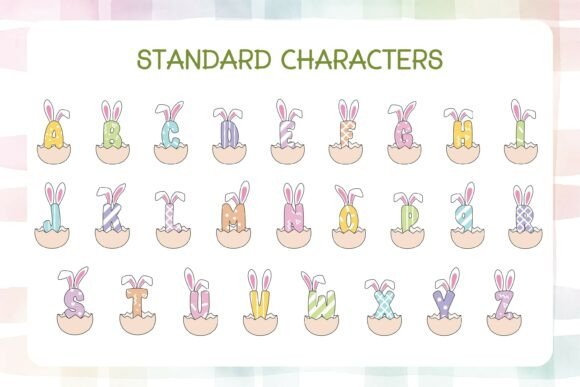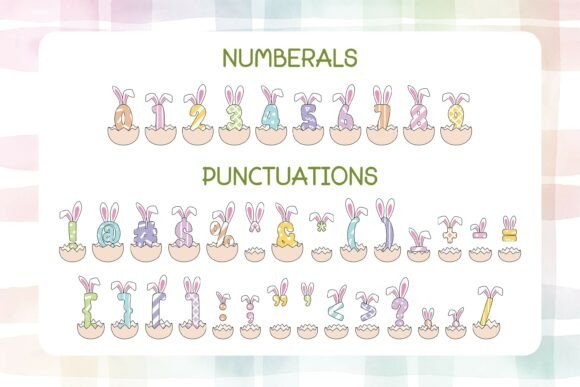
Bunny Hatch Font: The Ultimate Easter-Inspired Color Display Font 🐰🥚✨
Are you looking for a font that can add a touch of Easter magic to your designs? Look no further than the Bunny Hatch Color Font! This adorable font is inspired by Easter, bunny ears, and cracked eggshell designs, making it perfect for fun, kids, and holiday projects. In this article, we’ll dive into the features and benefits of the Bunny Hatch Color Font and explore its endless possibilities for designers and crafters.
What is Bunny Hatch Color Font?
Bunny Hatch Color Font is a cute and playful color display font that features colorful patterns and adorable bunny ears popping out of eggs. Each character is carefully designed to bring a smile to your face, making it ideal for Easter-themed designs, kids’ products, and other fun projects. The font comes with both color font files and standard font files, allowing you to use it for both digital and craft projects.
Key Features of Bunny Hatch Color Font
• Cute and Playful Design: The Bunny Hatch Color Font features adorable bunny ears and colorful patterns, making it perfect for Easter-themed designs and kids’ projects.
• Color Font Files and Standard Font Files: The font comes with both color font files and standard font files, allowing you to use it for both digital and craft projects.
• Endless Possibilities: The Bunny Hatch Color Font is perfect for stickers, sublimation, Cricut, greeting cards, Easter designs, kids’ products, posters, and social media graphics.
Perfect for Easter and Kids’ Designs
The Bunny Hatch Color Font is specifically designed for Easter-themed designs and kids’ projects. The font’s playful and colorful design makes it perfect for adding a touch of Easter magic to your designs. Whether you’re creating stickers, greeting cards, or social media graphics, this font is sure to delight your audience.
Use Bunny Hatch Color Font for Digital and Craft Projects
The Bunny Hatch Color Font is versatile and can be used for both digital and craft projects. The color font files are perfect for digital designs, such as social media graphics and sublimation, while the standard font files are ideal for craft projects, such as stickers and greeting cards. The font works great with popular cutting machines like Cricut, making it easy to create custom designs.
The Bunny Hatch Color Font offers several benefits for designers and crafters, including:
• Time-Saving: The font’s pre-designed characters save you time and effort, allowing you to focus on other aspects of your design.
• Customization: The font’s color font files and standard font files give you the flexibility to customize your designs and make them unique.
Ideas for Using Bunny Hatch Color Font
The Bunny Hatch Color Font is perfect for a variety of projects, including:
• Easter-themed designs: Use the font to create Easter-themed stickers, greeting cards, and social media graphics.
• Kids’ products: The font is perfect for designing kids’ products, such as posters, flyers, and brochures.
• Stickers and sublimation: Use the font to create custom stickers and sublimation designs for craft projects.
• Cricut projects: The font works great with Cricut machines, making it easy to create custom designs.
The Bunny Hatch Color Font is a must-have for designers and crafters looking to add a touch of Easter magic to their designs. With its cute and playful design, color font files, and standard font files, this font is perfect for fun, kids, and holiday projects. Whether you’re creating digital or craft projects, the Bunny Hatch Color Font is sure to delight your audience. So why wait? Get your paws on the Bunny Hatch Color Font today and start creating adorable Easter-themed designs! 🐰🥚✨